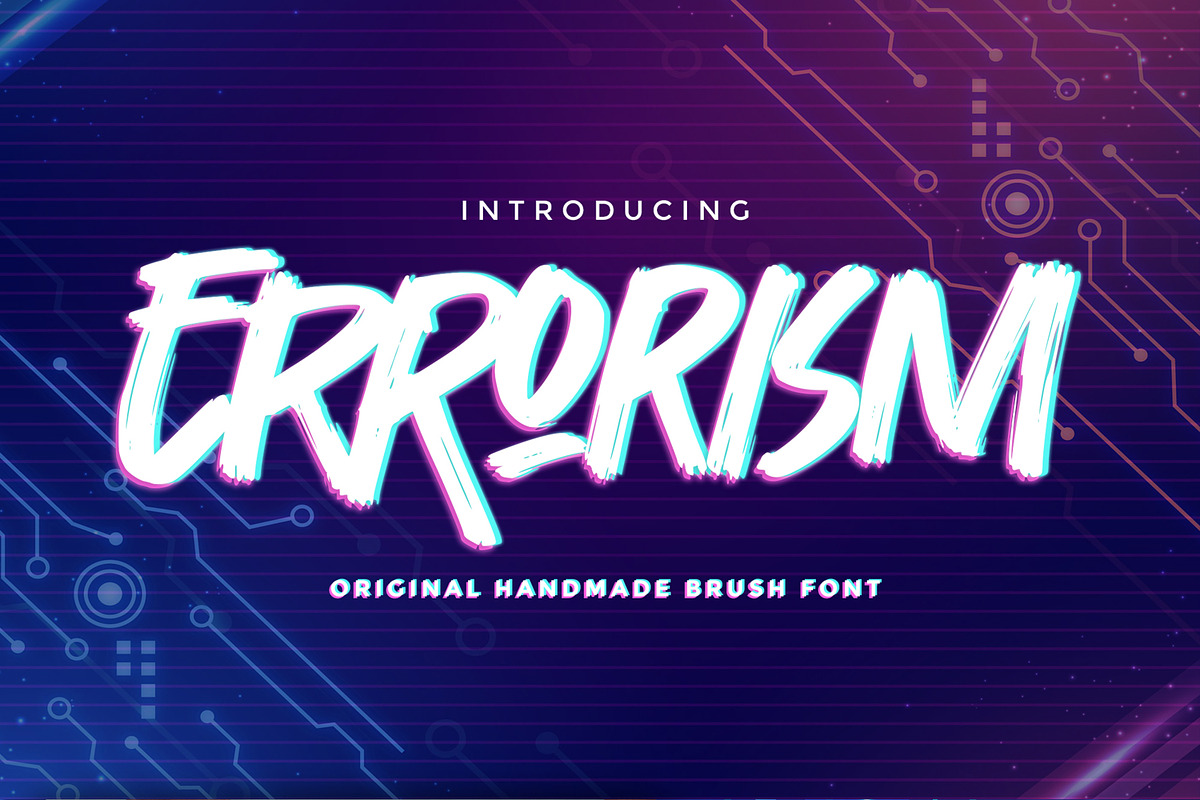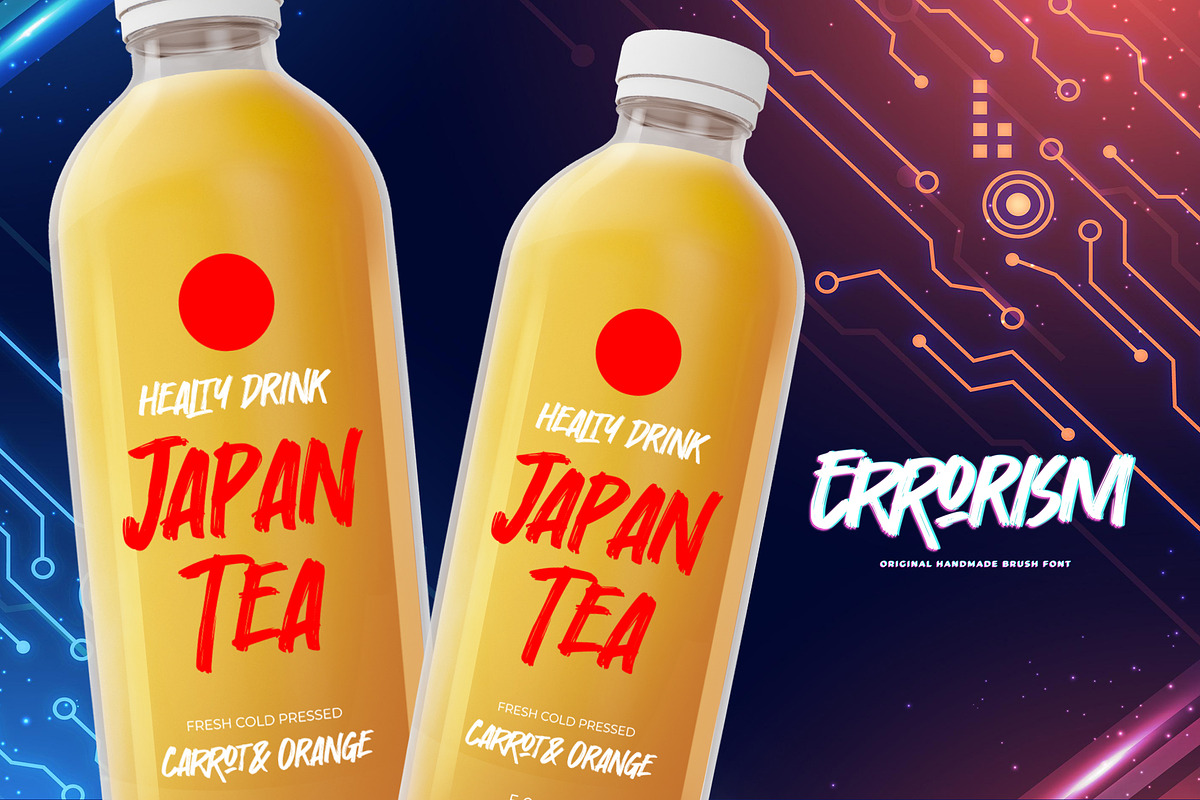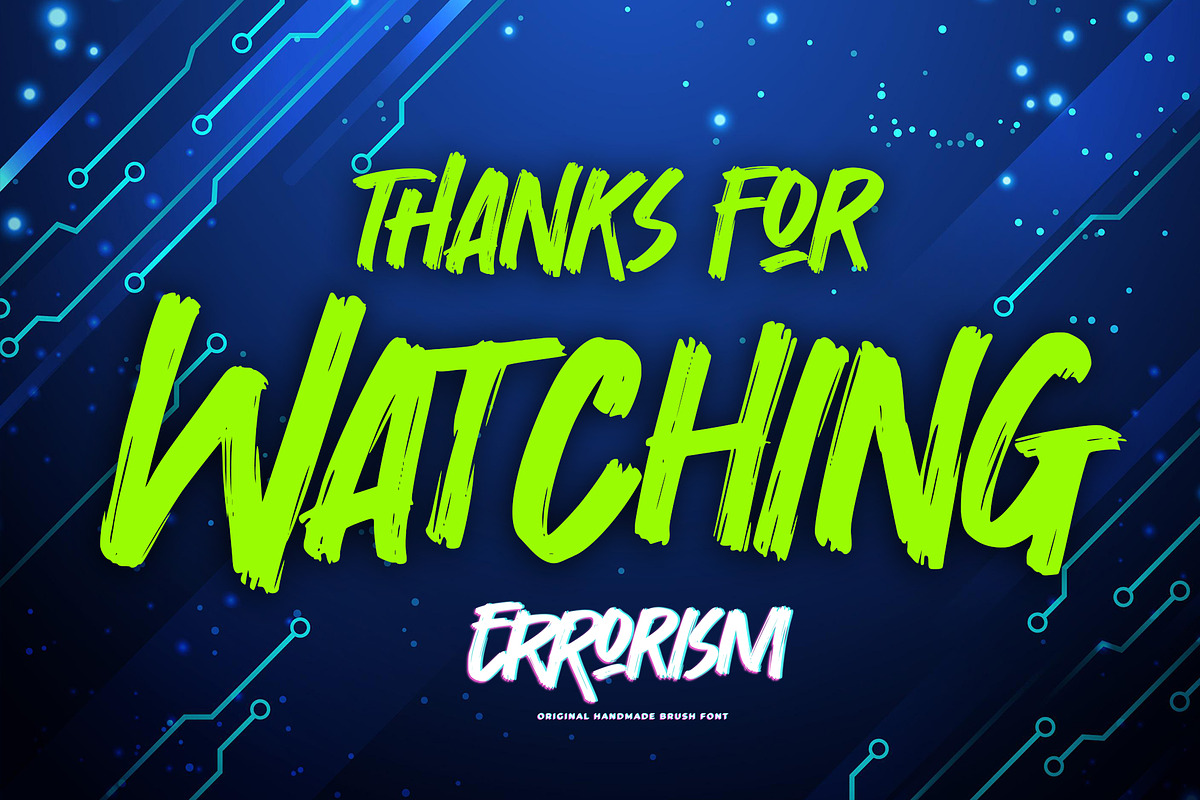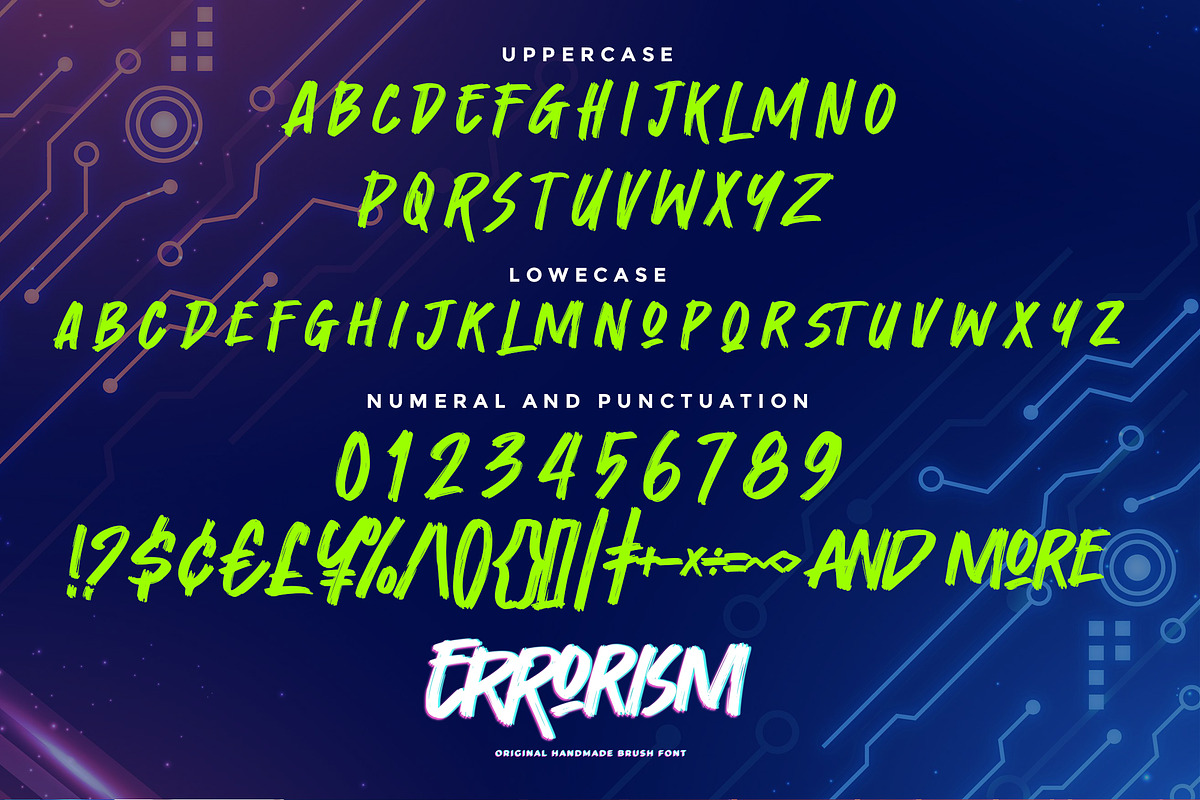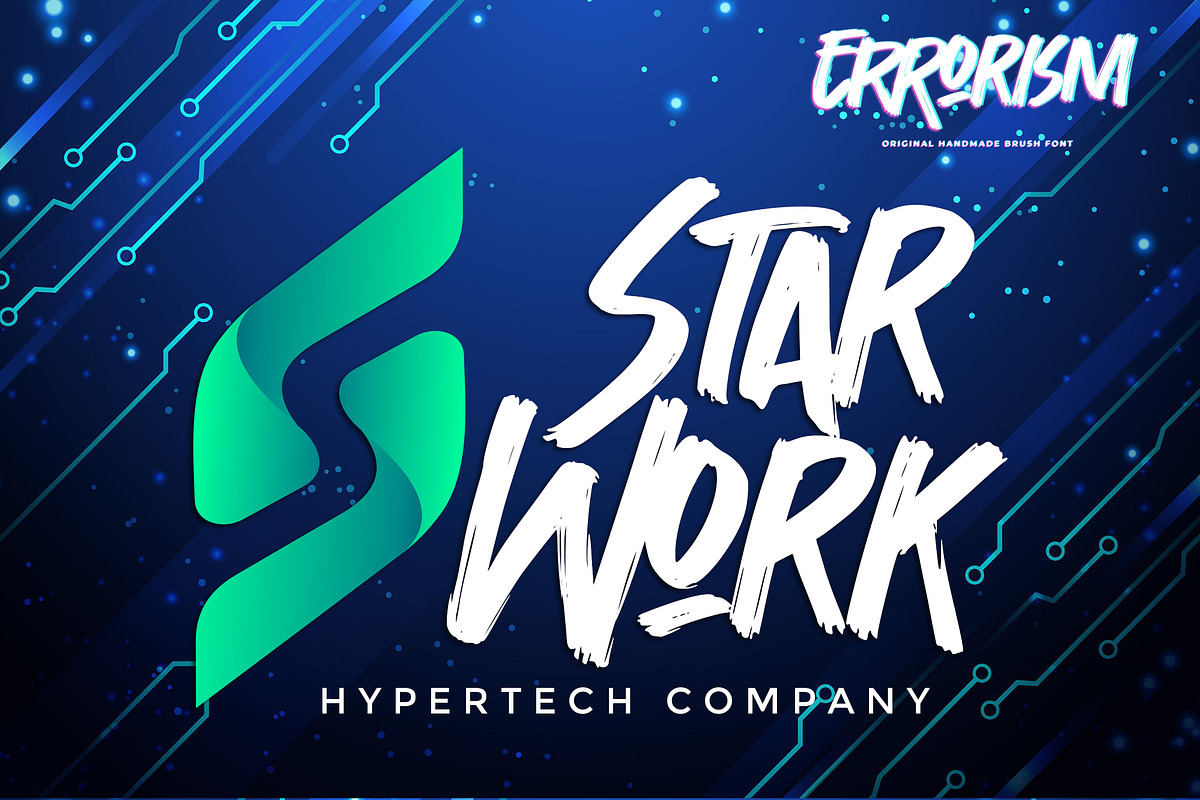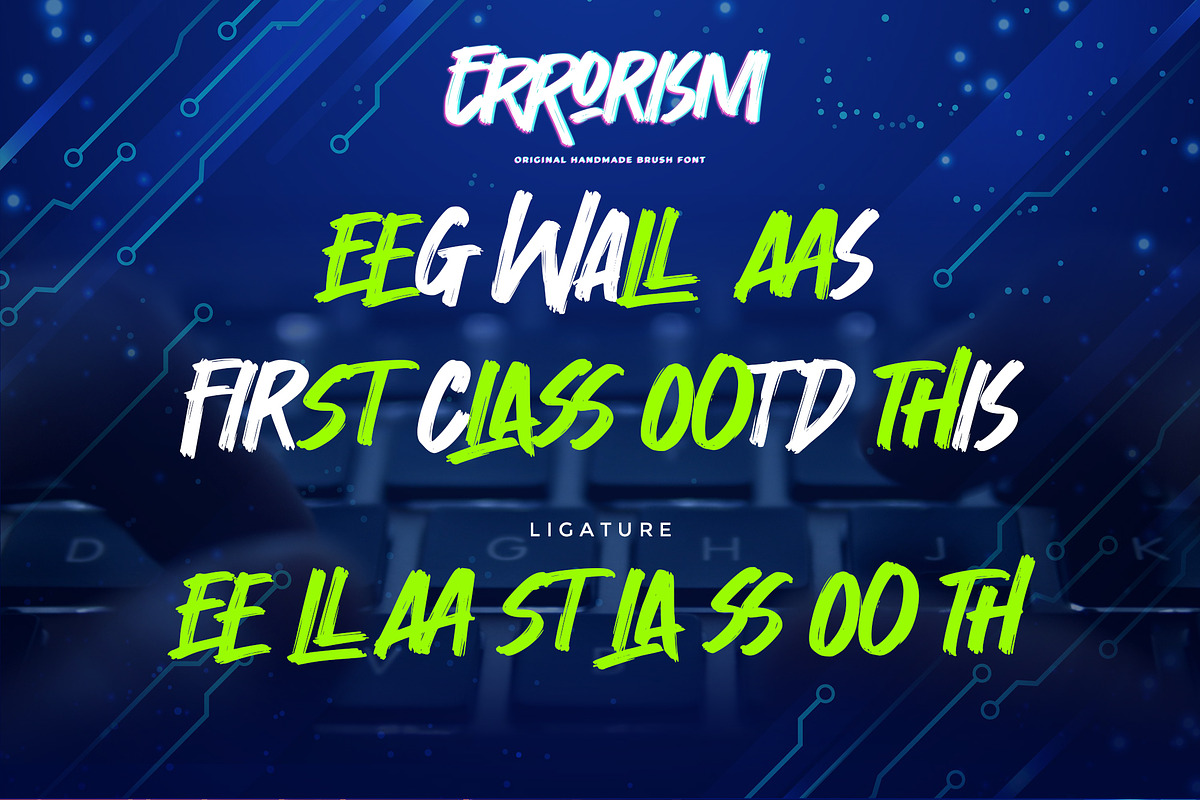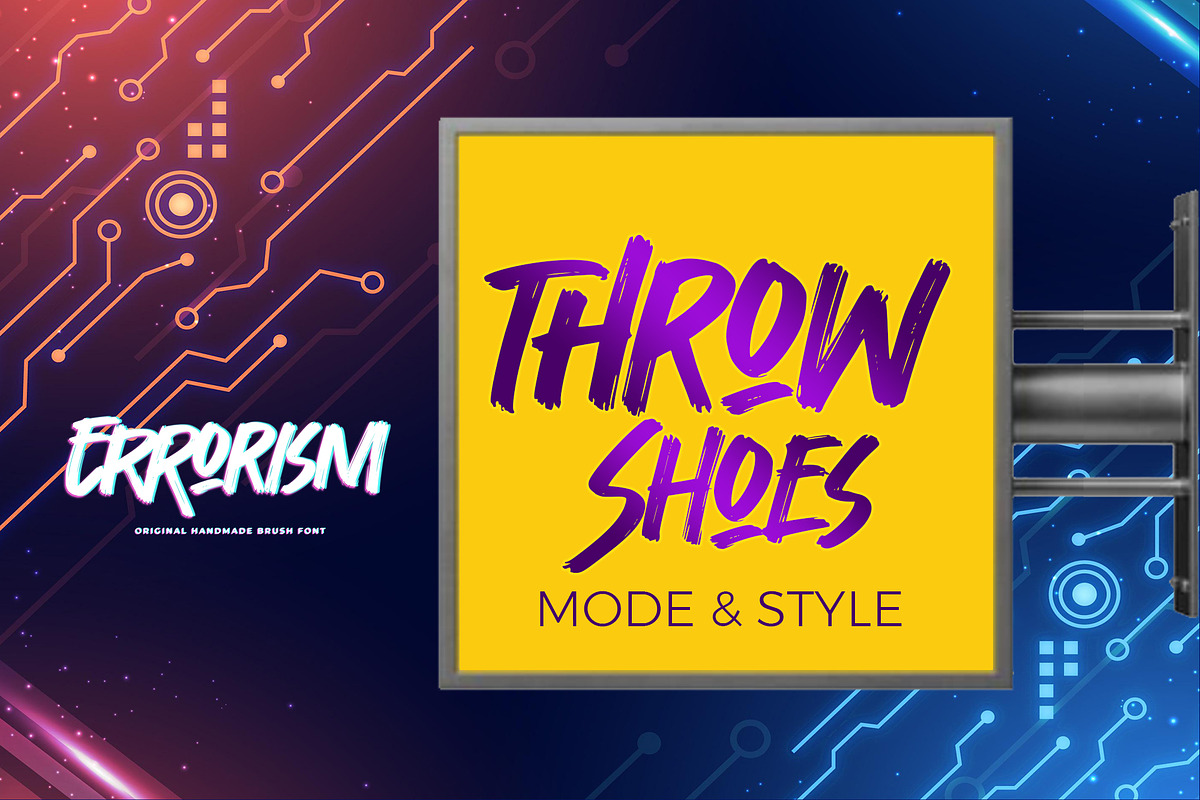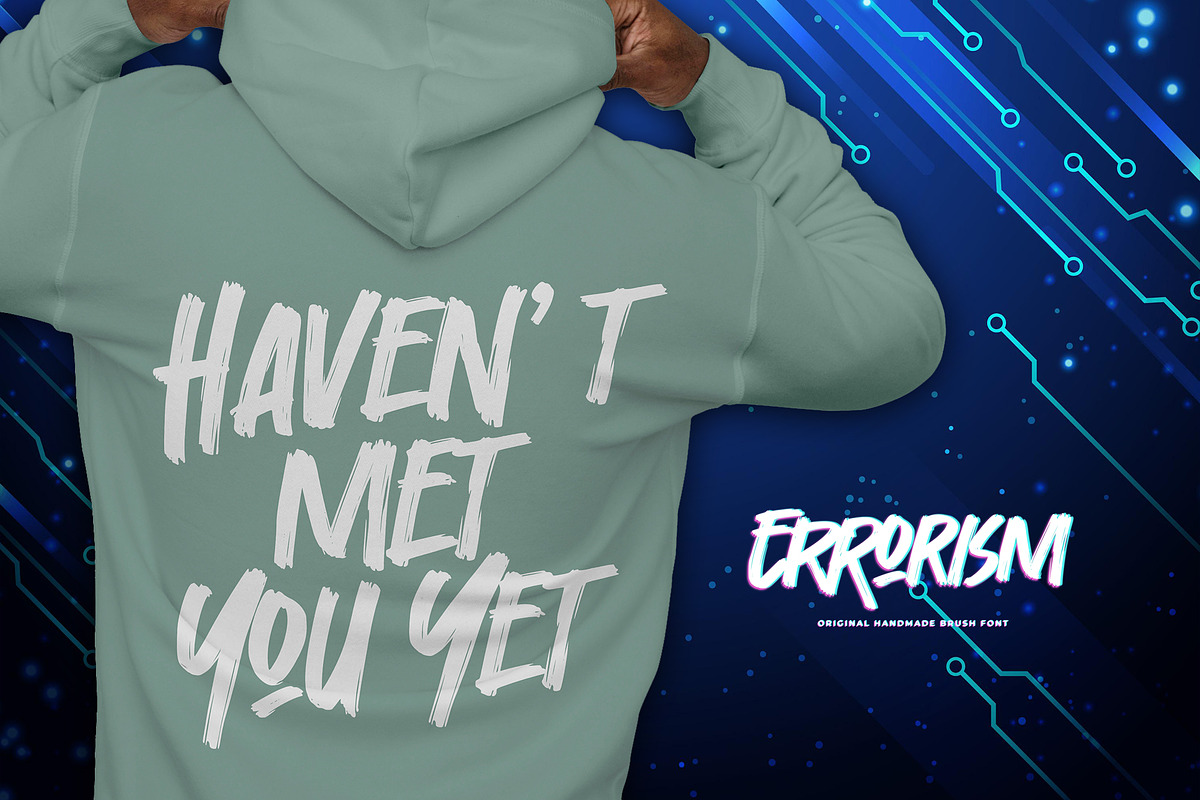
Errorism - Original Handmade Brush
Errorism - Original Handmade Brush Font is an Authentic brush Font that is written casually and quickly. Letters are made with Procreate. Then trace down into vector format, and carefully crafted into a typeface. That is why Errorism has a rough, authentic, and strong characteristic more natural look. You can activate Ligature OpenType panel,
Errorism Perfect for designs, branding projects, Logo design,Quotes product packaging and another Project that require cool strong brush font.